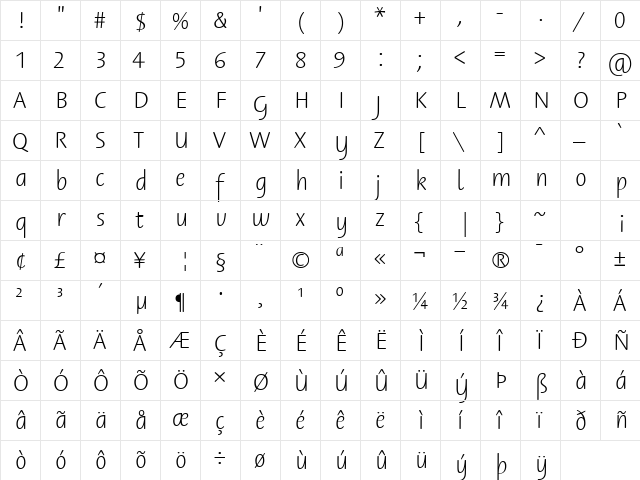
ABC Schrift Eins EF Regular Regular
Design Context for ABC Schrift Eins EF Regular Typeface
ABC Schrift Eins EF Regular offers clean, dependable letterforms without strong stylistic allegiance, making it a practical choice for designers who need flexibility.